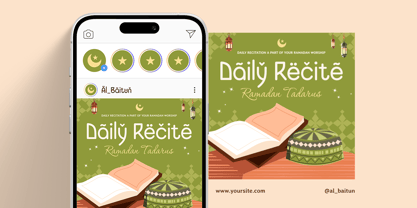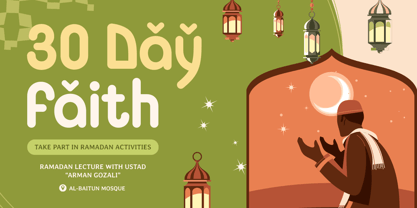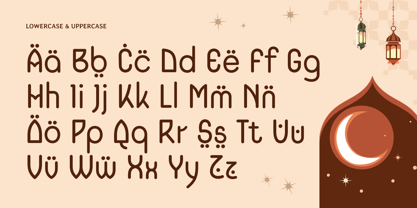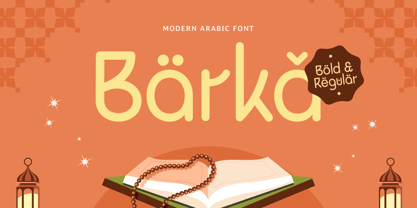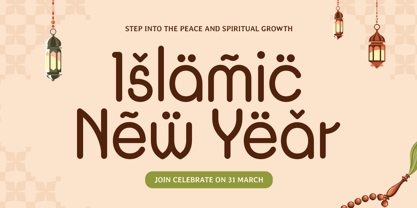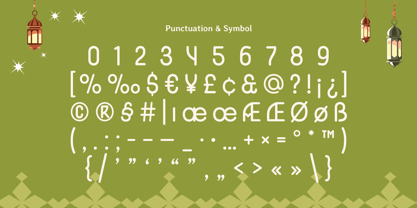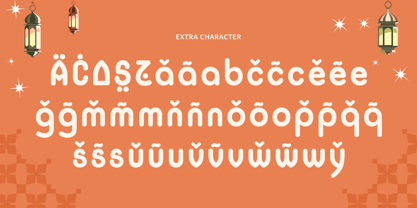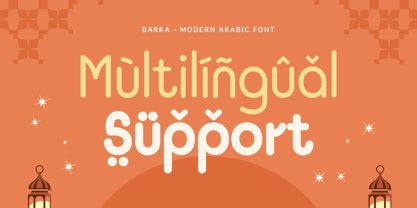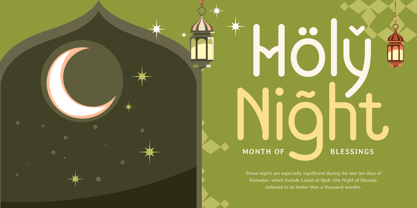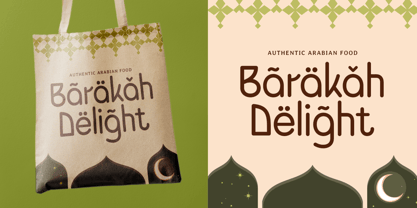
Barka
Barka - Modern Arabic Font
Barka is a modern Arabic font designed to bring elegance and clarity to your creative projects. Perfect for Ramadan greetings, Islamic branding, invitations, or posters, this font seamlessly combines the beauty of traditional Arabic calligraphy with a contemporary aesthetic. Its clean and well-crafted design ensures versatility, making it suitable for various design applications.
Inspired by the timeless art of Arabic script, Barka delivers balanced forms and smooth strokes that elevate your work. Whether you’re designing for social media, product packaging, or cultural events, this font brings a polished and professional touch that resonates with authenticity and grace.
Add depth and character to your projects with Barka, a font that captures the spirit of modern Arabic design while honoring its rich cultural roots. It’s a perfect choice for any design that seeks to stand out with elegance and meaning.
Barka Modern Arabic Font Features:
• Elegant and Versatile Arabic Script
• Perfect for Ramadan Greetings, Branding, and Invitations
• Punctuation, Numbers, and Symbols
• Uppercase and Lowercase
• Opentype Features